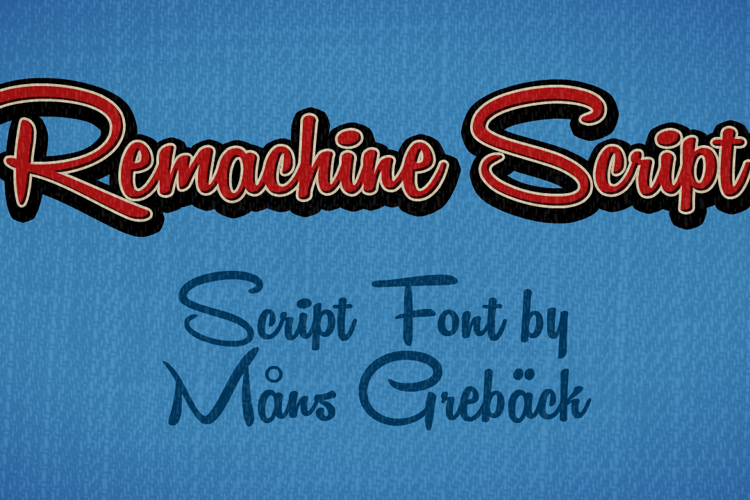
Remachine Script Font
Preview of Remachine Script Font
This is a very refreshing typeface that looks like it jumped straight from a 1950's magazine ad about some vacation destination!
This font is beautiful. The color also is fresh. Good for informal writing. Good work.
Nice font XD Reminds me of the Disney logo text really well made!
This Font is Great Thanks! 😃
This font came in so much use.
Great great ! Love this font so much
i love this please make more! xx